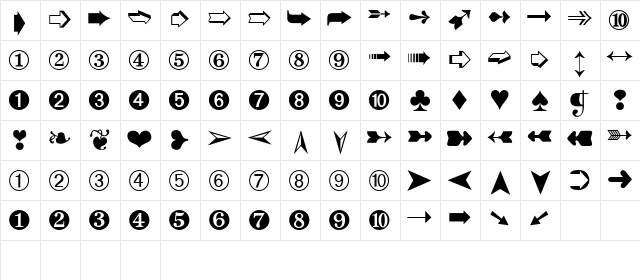
Dingthing 2 Normal
Design Context for Dingthing 2 Typeface
Dingthing 2 is a composed and adaptable typeface that performs quietly and consistently across a wide range of design contexts. Its slender proportions lend an understated elegance to any composition.
Pro Tip: Use Dingthing 2 in both headline and body roles to test its range before committing to a single application.